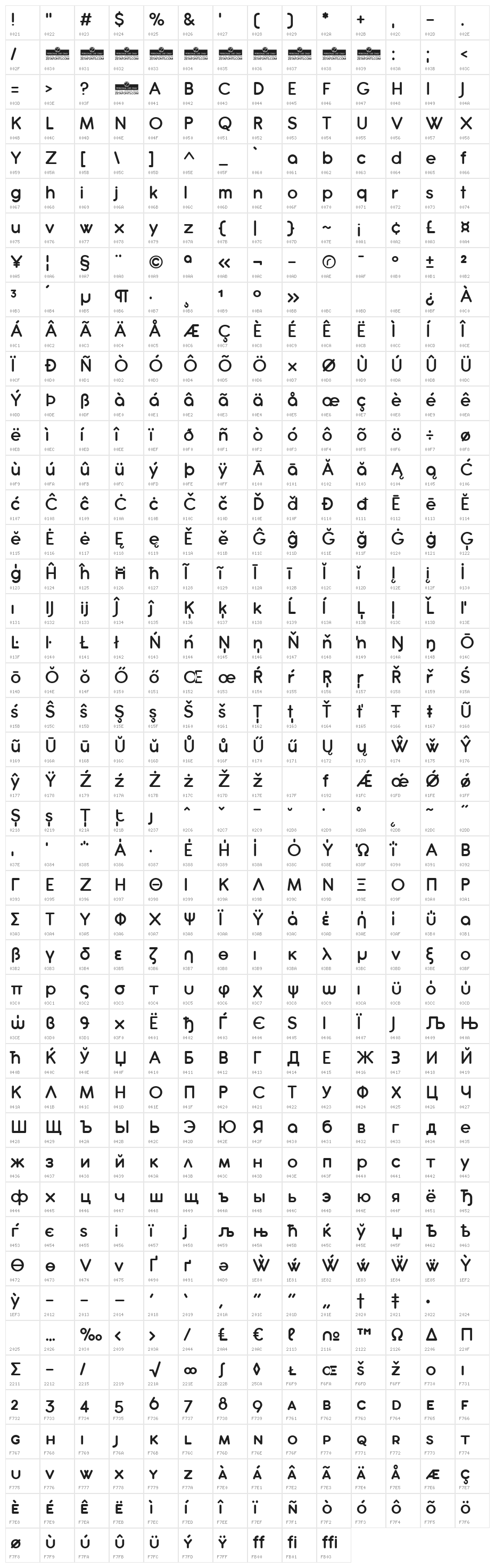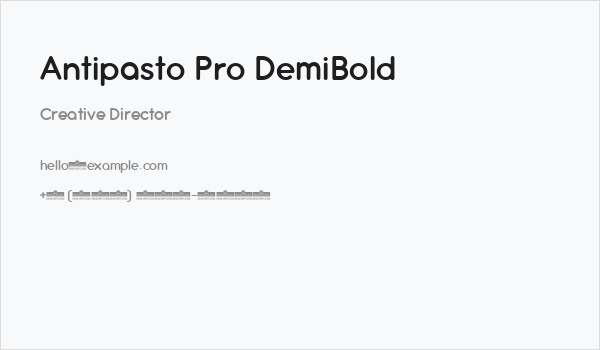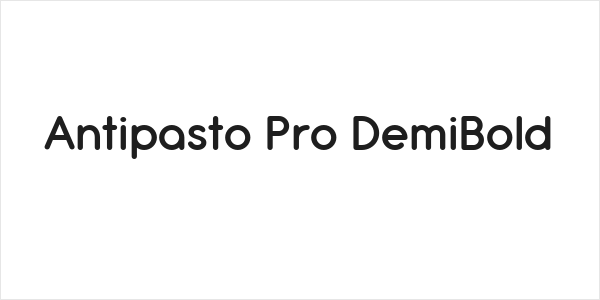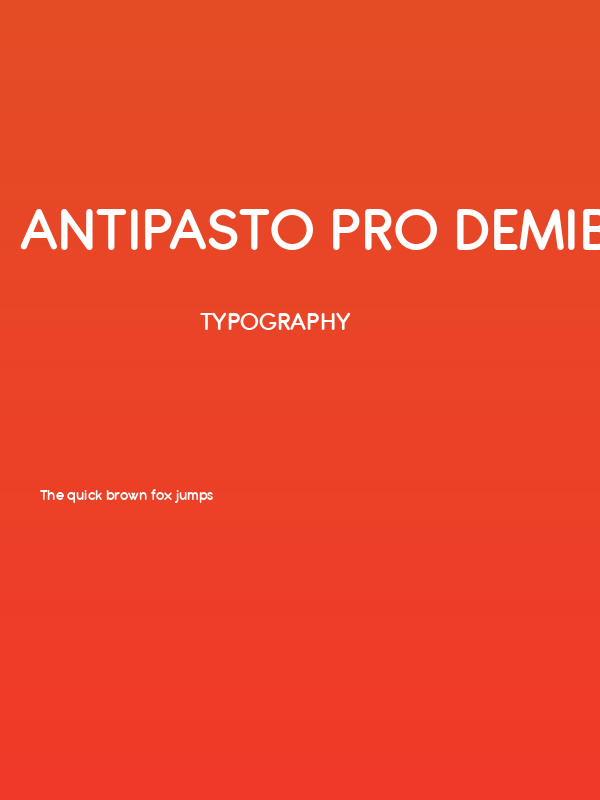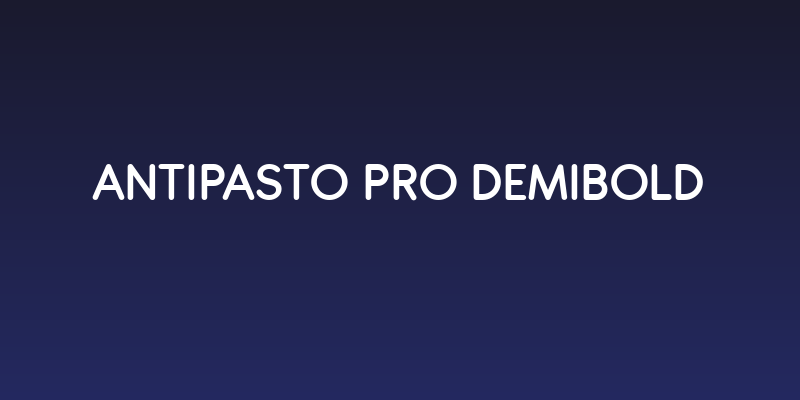
Antipasto Pro DemiBold Font
Antipasto Pro DemiBold Description
This font features a clean, rounded sans-serif style that exudes a modern and friendly vibe. The characters are well-balanced with a uniform stroke width, providing a harmonious and approachable appearance. The uppercase and lowercase letters maintain a consistent design, enhancing readability. The numerals and special characters are crafted with the same attention to detail, ensuring they blend seamlessly with the alphabet. This font's smooth curves and lack of sharp edges make it ideal for conveying a sense of warmth and approachability.
| Use Case | Headlines, Logos, Digital Interfaces |
| Proposed Projects | Ideal for branding, advertising, packaging, and digital interfaces where a modern and friendly tone is desired. |